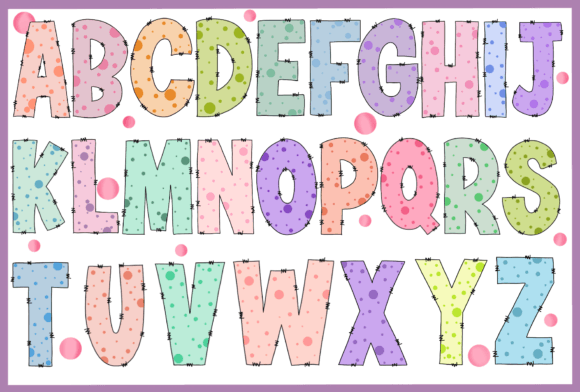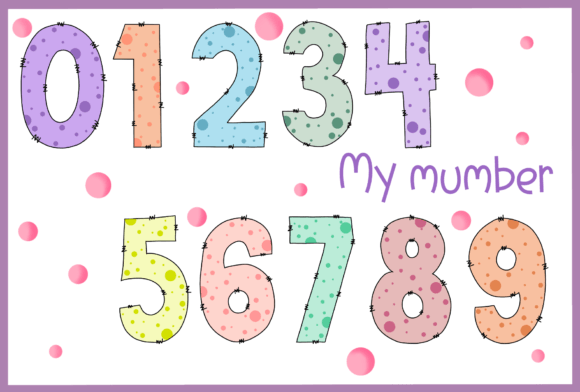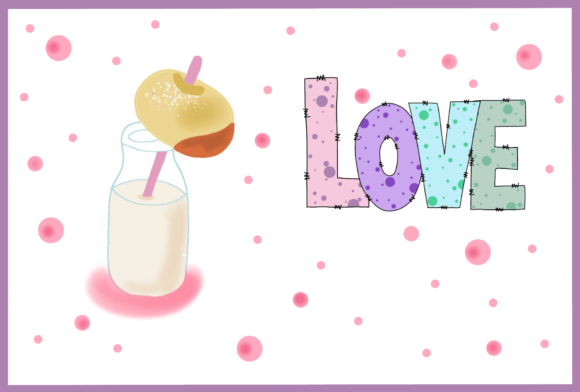
Introduction to Buble Font
Buble is a playful and inviting color font that features tiny bubbles inside each character.
With its cheerful and whimsical style, this font is perfect for children’s books, greeting cards, and other projects where a cute and friendly font is needed to create a fun and lighthearted atmosphere .